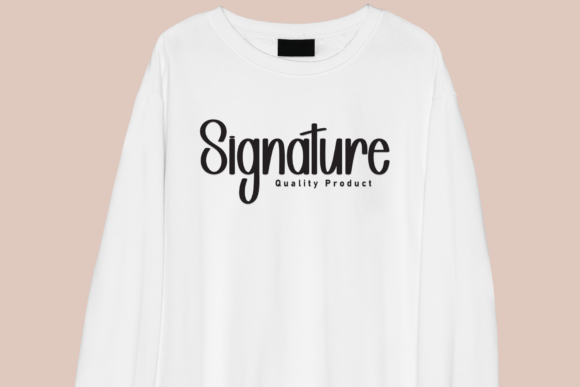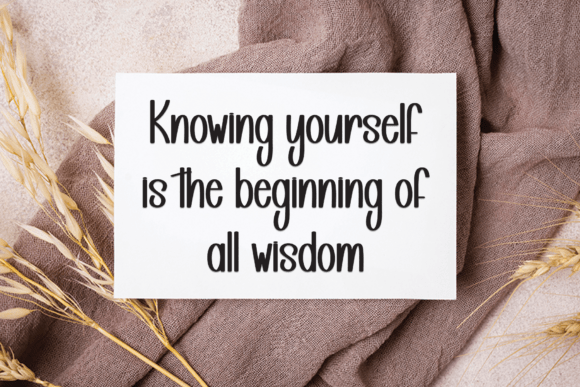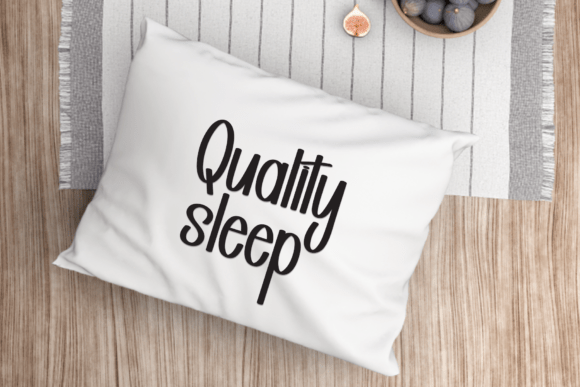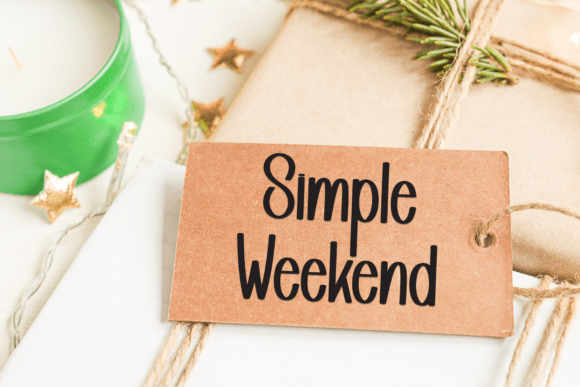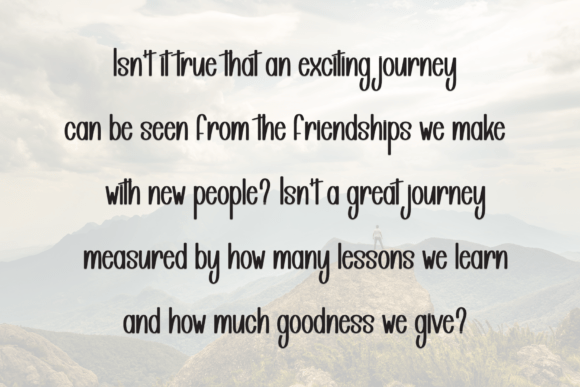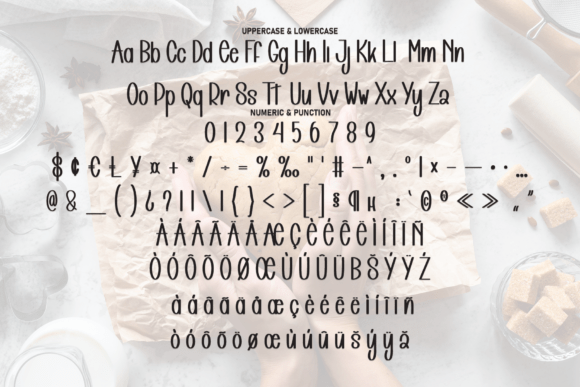
Cookies Handmade Font: A Delightful Handwritten Font for Your Design Projects
Are you looking for a font that can add a touch of warmth and personality to your design projects? Look no further than the Cookies Handmade Font. This enchanting handwritten font is perfect for crafters and designers who want to create sentimental and delightful designs that capture the hearts of their audience.
The Charm of Cookies Handmade Font
The Cookies Handmade Font is overflowing with amiable accents and welcoming curves that infuse a tender brushstroke of delight to your artistry. Its unique and charming letterforms are designed to create a warm and cozy atmosphere, making it perfect for crafting sentimental wedding invitations, delightful cards, or any design projects that crave a dose of joy.
The Cookies Handmade Font is a versatile font that can be used for a wide range of design projects. Whether you’re creating wedding invitations, birthday cards, or social media graphics, this font lays the basics of an amusing handwritten ambience that seduces your design aspirations into existence. Its friendly and approachable feel makes it perfect for designs that require a personal touch.
Key Features of Cookies Handmade Font
- Handwritten style: The Cookies Handmade Font has a beautiful handwritten style that adds a touch of warmth and personality to your designs.
- Amiable accents: The font features amiable accents and welcoming curves that create a cozy and inviting atmosphere.
- Perfect for sentimental designs: The font is perfect for crafting sentimental wedding invitations, delightful cards, or any design projects that require a personal touch.
Benefits of Using Cookies Handmade Font
Using the Cookies Handmade Font can bring a range of benefits to your design projects. Here are a few:
- Adds a personal touch: The font adds a personal touch to your designs, making them more relatable and engaging.
- Creates a warm atmosphere: The font creates a warm and cozy atmosphere, perfect for designs that require a friendly and approachable feel.
- Versatile: The font can be used for a wide range of design projects, from wedding invitations to social media graphics.
- Easy to read: The font is easy to read, making it perfect for designs that require a clear and concise message.
Tips for Using Cookies Handmade Font
Here are a few tips for using the Cookies Handmade Font:
- Use it for headings and titles: The font is perfect for headings and titles, adding a touch of personality and whimsy to your designs.
- Pair it with other fonts: The font can be paired with other fonts to create a unique and visually appealing design.
- Experiment with colors: The font can be used with a range of colors, from bright and bold to soft and pastel.
- Use it for digital and print designs: The font can be used for both digital and print designs, making it a versatile addition to your font collection.
The Cookies Handmade Font is a delightful handwritten font that can add a touch of warmth and personality to your design projects. With its amiable accents and welcoming curves, this font is perfect for crafting sentimental wedding invitations, delightful cards, or any design projects that crave a dose of joy. Whether you’re a designer or crafter, this font is sure to become a favorite in your collection.